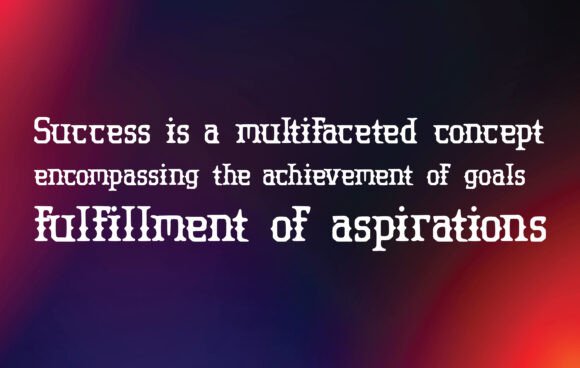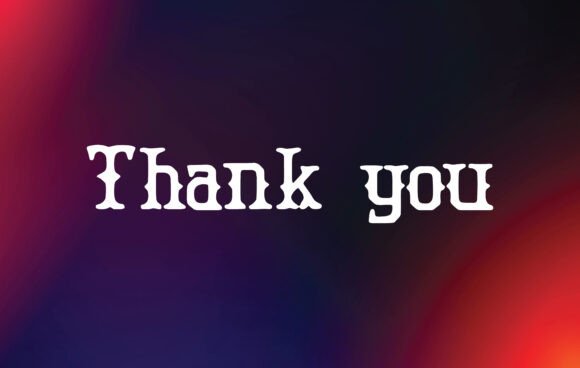
Dangler Font: Elevate Your Creative Projects with this Lovely and Beautiful Font
Are you a designer or crafter looking for a font that can take your creative ideas to the next level? Look no further than Dangler Font! This stunning font is designed to help you create eye-catching logos, branding, and quotes that will leave a lasting impression on your audience. In this article, we’ll dive into the features and benefits of Dangler Font, and explore how it can elevate your creative projects.
What is Dangler Font?
Dangler Font is a unique and beautiful font that is perfect for creative projects. Its elegant and sophisticated design makes it an ideal choice for designers and crafters who want to add a touch of luxury to their work. Whether you’re creating a logo, branding materials, or quotes, Dangler Font is the perfect choice.
Features of Dangler Font
Dangler Font has several features that make it stand out from other fonts. Some of its key features include:
- Unique Design: Dangler Font has a distinctive design that is both elegant and sophisticated. Its unique shape and style make it perfect for creating eye-catching logos and branding materials.
- High-Quality: Dangler Font is a high-quality font that is designed to produce crisp and clear results, even at small sizes.
- Versatile: Dangler Font is a versatile font that can be used for a wide range of creative projects, from logos and branding to quotes and social media graphics.
Benefits of Using Dangler Font
There are many benefits to using Dangler Font in your creative projects. Some of the key benefits include:
- Stand Out from the Crowd: Dangler Font is a unique and distinctive font that will help your creative projects stand out from the crowd.
- Professional Look: Dangler Font has a professional and sophisticated look that is perfect for creating high-end logos and branding materials.
- Easy to Read: Dangler Font is easy to read, even at small sizes, making it perfect for use in quotes and social media graphics.
- Time-Saving: Dangler Font is a high-quality font that can save you time and effort in your creative projects.
Tips and Tricks for Using Dangler Font
Here are some tips and tricks for using Dangler Font:
- Use it with Contrast: Use Dangler Font with contrasting colors to make it stand out.
- Experiment with Sizes: Experiment with different sizes to find the perfect fit for your creative project.
- Pair it with Other Fonts: Pair Dangler Font with other fonts to create a unique and interesting look.
Dangler Font is a lovely and beautiful font that has the potential to take your creative ideas to the highest level. Its unique design, high-quality, and versatility make it the best choice for creating eye-catching logos, branding, and quotes. With its ease of use and professional look, Dangler Font is perfect for designers and crafters who want to elevate their creative projects.